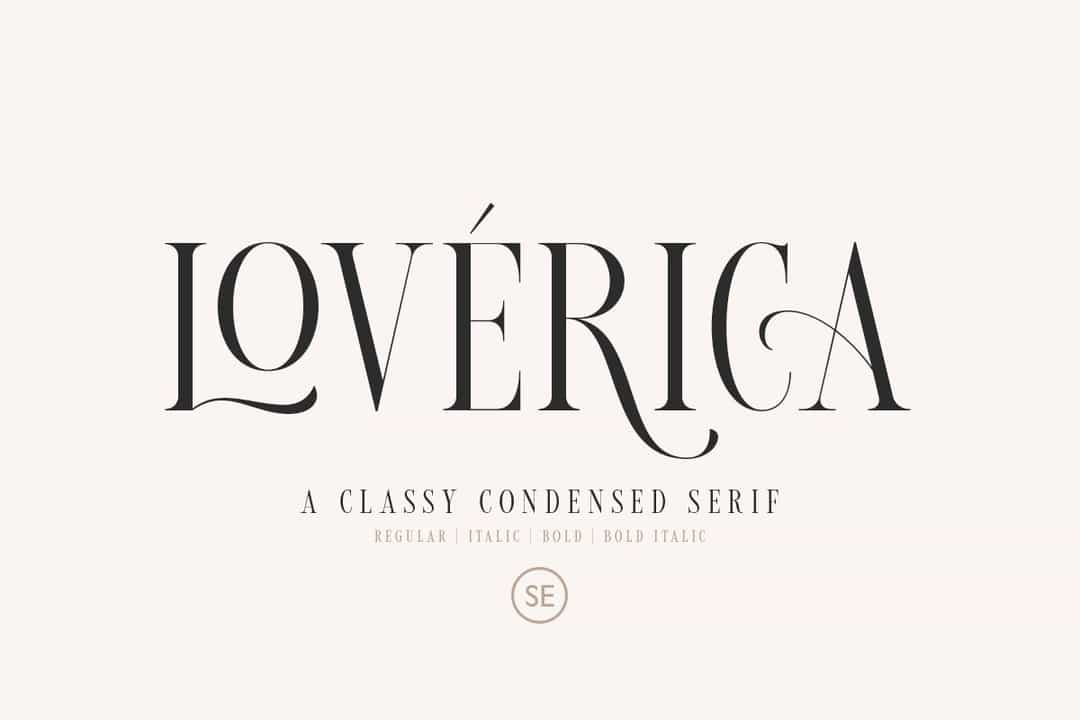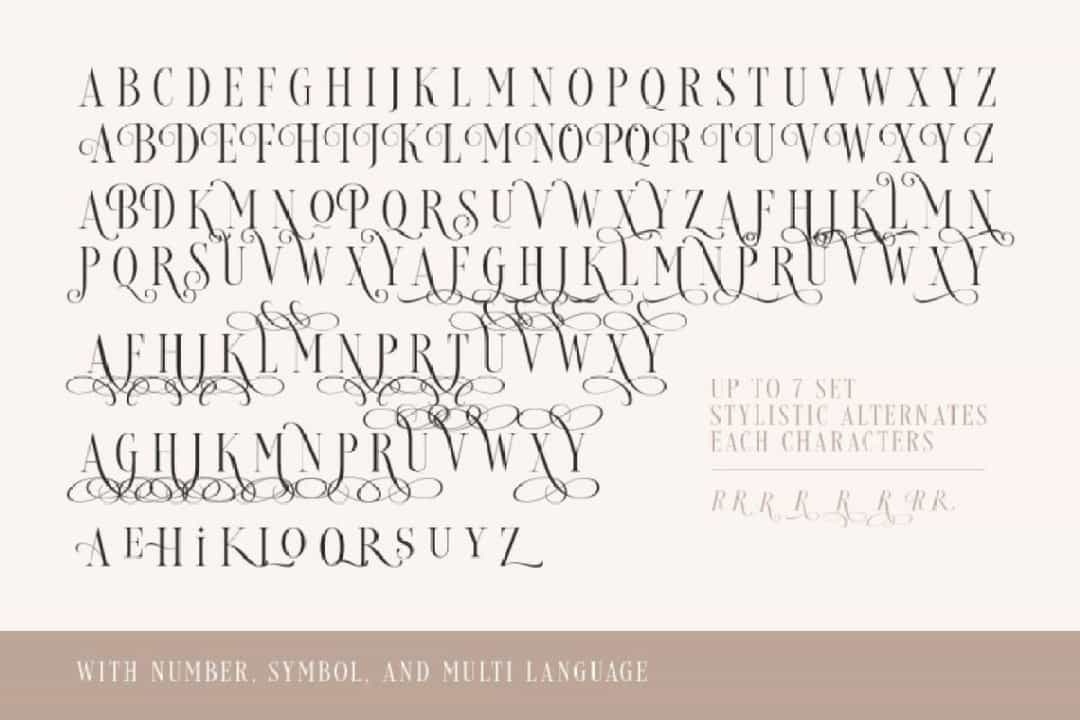
Loverica is a condensed serif font with many possibilities and a rather elegant look. It offers seven stylistic sets per font, so your presentation or logo will be easily noticed, and there are four more styles that have different purposes!